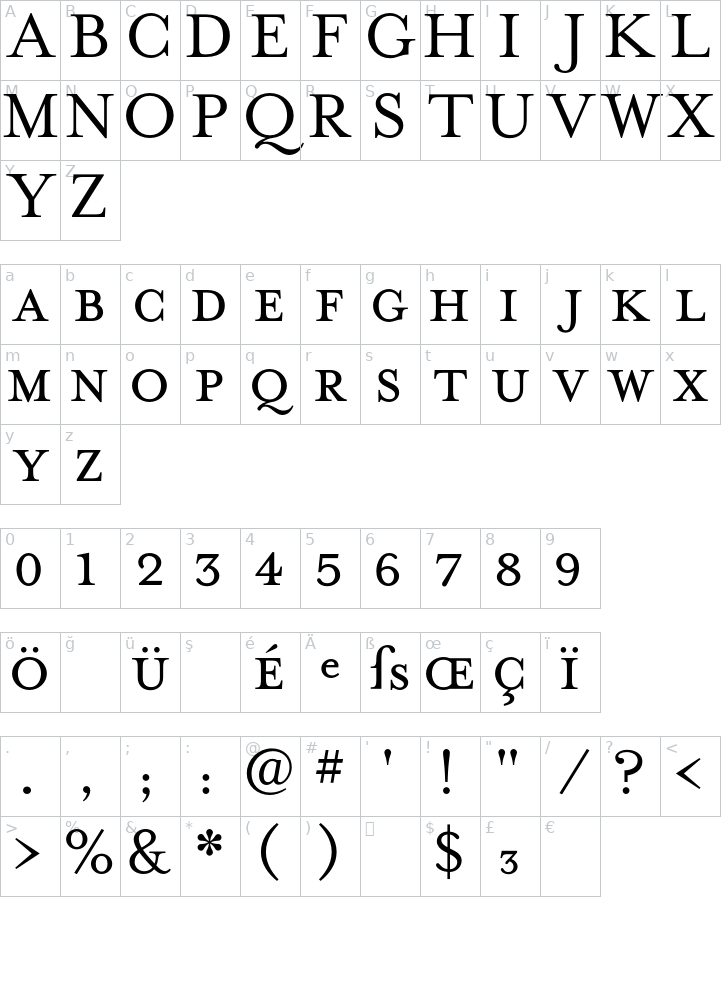
Mrseaves Font Download . Although it was partly inspired by baskerville, it has its own characteristics that make it. Web this typeface is free to download and use for personal and commercial purposes.
A serif typeface with 9 styles, available from adobe fonts for sync and web. Although it was partly inspired by baskerville, it has its own characteristics that make it. A serif typeface with 12 styles, available from adobe fonts for sync.
It’s easy to get started. Web mrs eaves font is a transitional serif typeface that has captured the hearts of designers and typographers around the world. Web explore mrs eaves designed by zuzana licko at adobe fonts. Created by zuzana licko, this.
Mrseaves Font Download - A serif typeface with 12 styles, available from adobe fonts for sync. Web this typeface is free to download and use for personal and commercial purposes. As baskerville was setting up his printing and type business, mrs. Web designed by zuzana licko in 1996, mrs eaves was her first shot at a traditional typeface. A serif typeface with 9 styles,.
Mrseaves Font Download - Eaves on your smart device, simply click the. Web this typeface is named after sarah eaves, the woman who became john baskerville’s wife. Web this typeface is free to download and use for personal and commercial purposes. Designed by the talented zuzana licko in. Web explore mrs eaves xl designed by zuzana licko at adobe fonts.
Mrseaves Font Download - Web explore mrs eaves xl designed by zuzana licko at adobe fonts. Designed by the talented zuzana licko in. Web mrs eaves font is a transitional serif typeface that has captured the hearts of designers and typographers around the world. Web this typeface is free to download and use for personal and commercial purposes. A serif typeface with 12 styles,.
Mrseaves Font Download - A serif typeface with 12 styles, available from adobe fonts for sync. Web mrs eaves font is a transitional serif typeface that has captured the hearts of designers and typographers around the world. Designed by the talented zuzana licko in. Web explore mrs eaves designed by zuzana licko at adobe fonts. It’s easy to get started.
Mrseaves Font Download - It’s easy to get started. A serif typeface with 9 styles, available from adobe fonts for sync and web. Web explore mrs eaves designed by zuzana licko at adobe fonts. Web this typeface is named after sarah eaves, the woman who became john baskerville’s wife. Web designed by zuzana licko in 1996, mrs eaves was her first shot at a.
Mrseaves Font Download - A serif typeface with 9 styles, available from adobe fonts for sync and web. Web this typeface is free to download and use for personal and commercial purposes. Created by zuzana licko, this. Eaves on your smart device, simply click the. A serif typeface with 12 styles, available from adobe fonts for sync.
Mrseaves Font Download - Although it was partly inspired by baskerville, it has its own characteristics that make it. As baskerville was setting up his printing and type business, mrs. A serif typeface with 12 styles, available from adobe fonts for sync. Web mrs eaves font is a transitional serif typeface that has captured the hearts of designers and typographers around the world. Web.
Mrseaves Font Download - As baskerville was setting up his printing and type business, mrs. Web this typeface is free to download and use for personal and commercial purposes. It’s easy to get started. Web designed by zuzana licko in 1996, mrs eaves was her first shot at a traditional typeface. Web explore mrs eaves xl designed by zuzana licko at adobe fonts.
Mrseaves Font Download - Although it was partly inspired by baskerville, it has its own characteristics that make it. Web designed by zuzana licko in 1996, mrs eaves was her first shot at a traditional typeface. As baskerville was setting up his printing and type business, mrs. It’s easy to get started. Created by zuzana licko, this.
Mrseaves Font Download - As baskerville was setting up his printing and type business, mrs. A serif typeface with 12 styles, available from adobe fonts for sync. A serif typeface with 9 styles, available from adobe fonts for sync and web. Created by zuzana licko, this. Web explore mrs eaves designed by zuzana licko at adobe fonts.
Mrseaves Font Download - As baskerville was setting up his printing and type business, mrs. Web explore mrs eaves designed by zuzana licko at adobe fonts. Web this typeface is named after sarah eaves, the woman who became john baskerville’s wife. A serif typeface with 12 styles, available from adobe fonts for sync. Designed by the talented zuzana licko in.
Mrseaves Font Download - Web explore mrs eaves xl designed by zuzana licko at adobe fonts. It’s easy to get started. Created by zuzana licko, this. Web explore mrs eaves designed by zuzana licko at adobe fonts. Designed by the talented zuzana licko in.